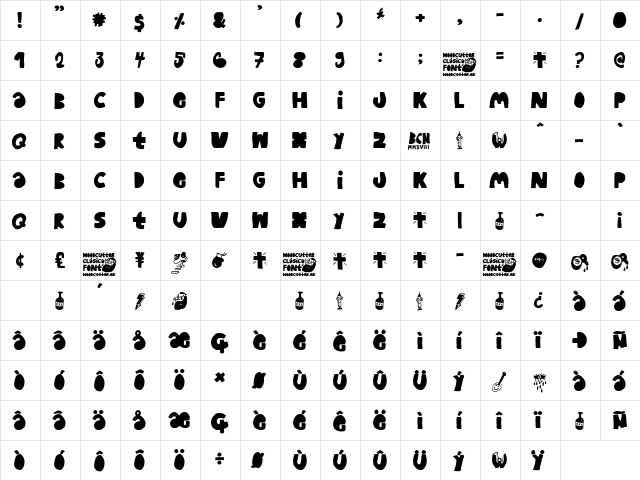
Woodcutter Cldzica Regular
Design Context for Woodcutter Cldzica Typeface
Woodcutter Cldzica echoes the hand-painted signage and woodblock typography of the American frontier, with a warm, rugged personality.
A natural fit for craft spirits, ranch branding, rodeo events, and Americana-inspired design work.
Font Pairing: Combine Woodcutter Cldzica with a simple slab or neutral sans — period-accurate companions reinforce the vintage feel without competing for attention.
Pro Tip: Use Woodcutter Cldzica for short, impactful bursts of text — it shines in poster headlines and product names rather than extended copy.